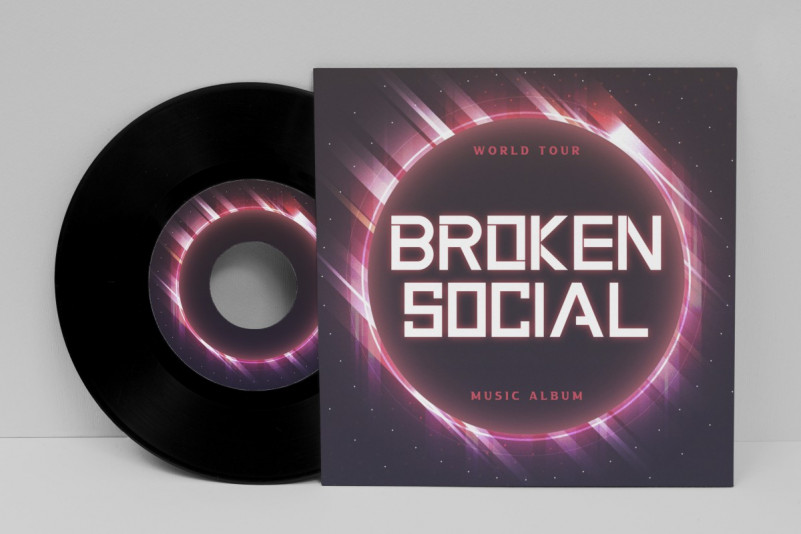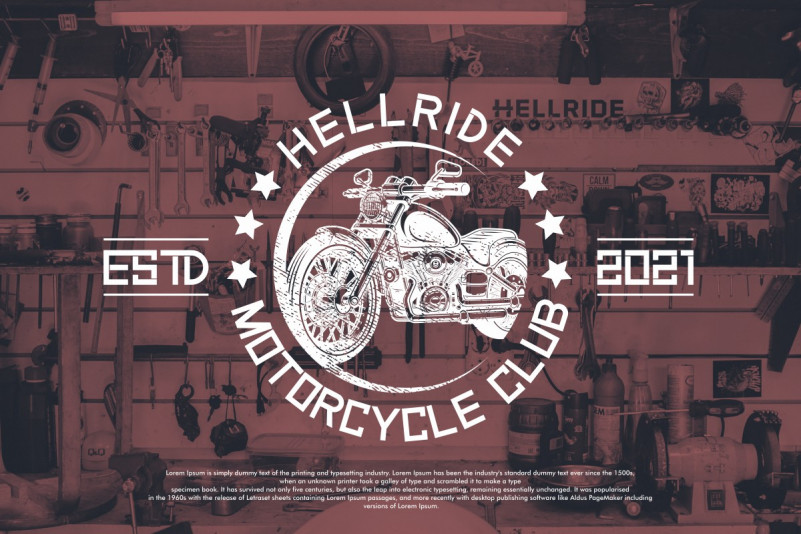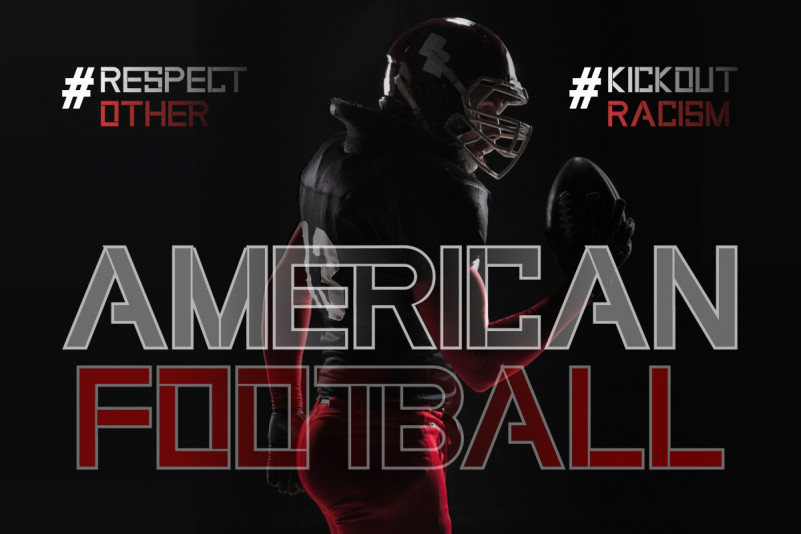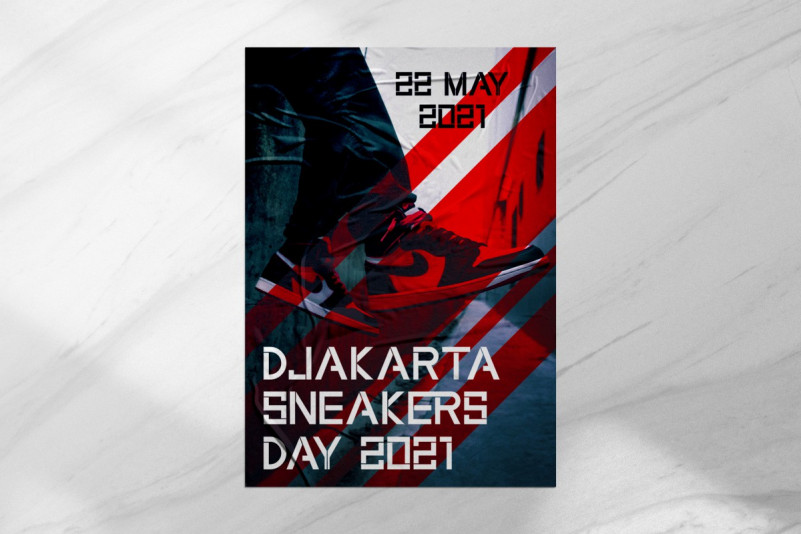
Patrols Font
Patrols Font is remotely made by RaisProject team in Indonesia. The font is our new font on the market. It has unique, modern and stylish style. Patrols Font was handcrafted for any your special projects including : headlines, promotion, events, branding, advertising, magazine, signage, invitation, stationery, social media posts, label, or and any projects that need unique strong style. The industries for this font is Startup, Automotive, Apps, Sports, Technology, Game, Magazine, Music, boxing etc.